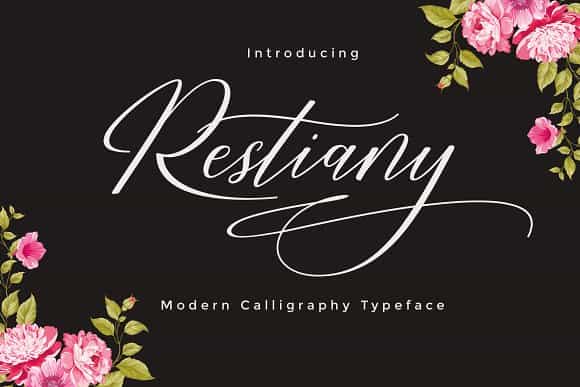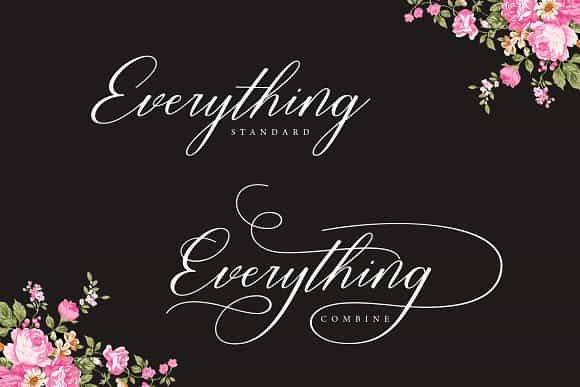
Discover Restiany Script Font, part of the Calligraphy collection—a versatile and unique font perfect for adding a personal touch to your projects. Download it for free and enjoy crafting designs with style, from invitations to social media posts. This font is available exclusively for personal use, giving you the freedom to create without limits. Unlock your creativity with Restiany Script Font today!
Proudly introducing Restiany Calligraphy Font. This font was created and shared by cooldesignlab. Restiany Font is a gorgeous script type. The shoe requires that the scratches be as strong and modern as possible. It is ideal to use the font for many design items. A casual and nice modern typeface style inspired by hand lettering. Use this display typeface. Moreover, it makes the most of its look when staying elegant; use in combination with script typography styles to create a consistent visual identity.